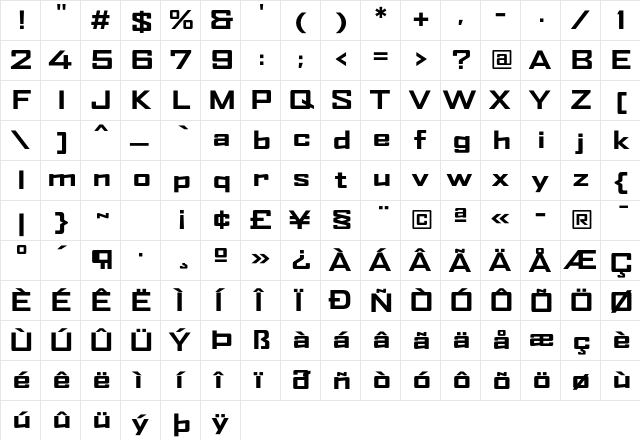
AgencyFB Bold Extended Regular Font Preview
AgencyFB Bold Extended Regular
AgencyFB Bold Extended Regular Font Details
Design Context for AgencyFB Bold Extended Typeface
AgencyFB Bold Extended offers clean, dependable letterforms without strong stylistic allegiance, making it a practical choice for designers who need flexibility. The heavy weight commands attention and anchors typographic hierarchies.